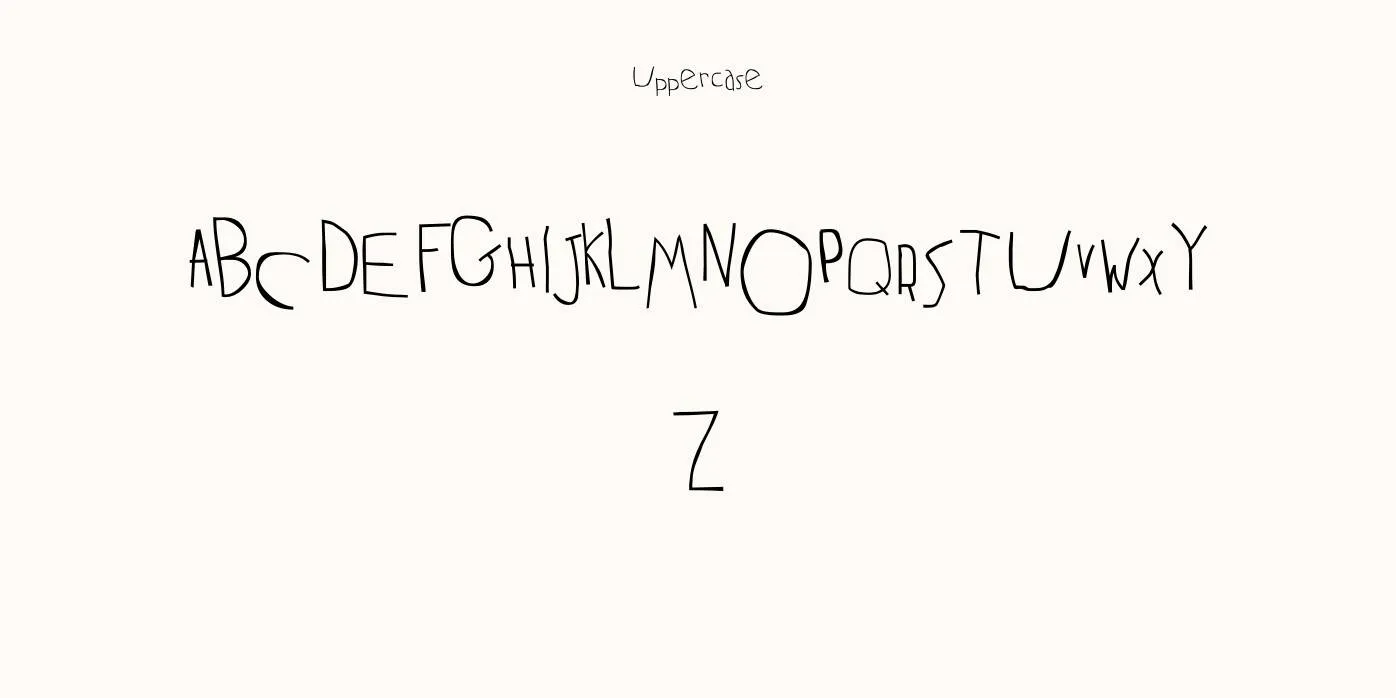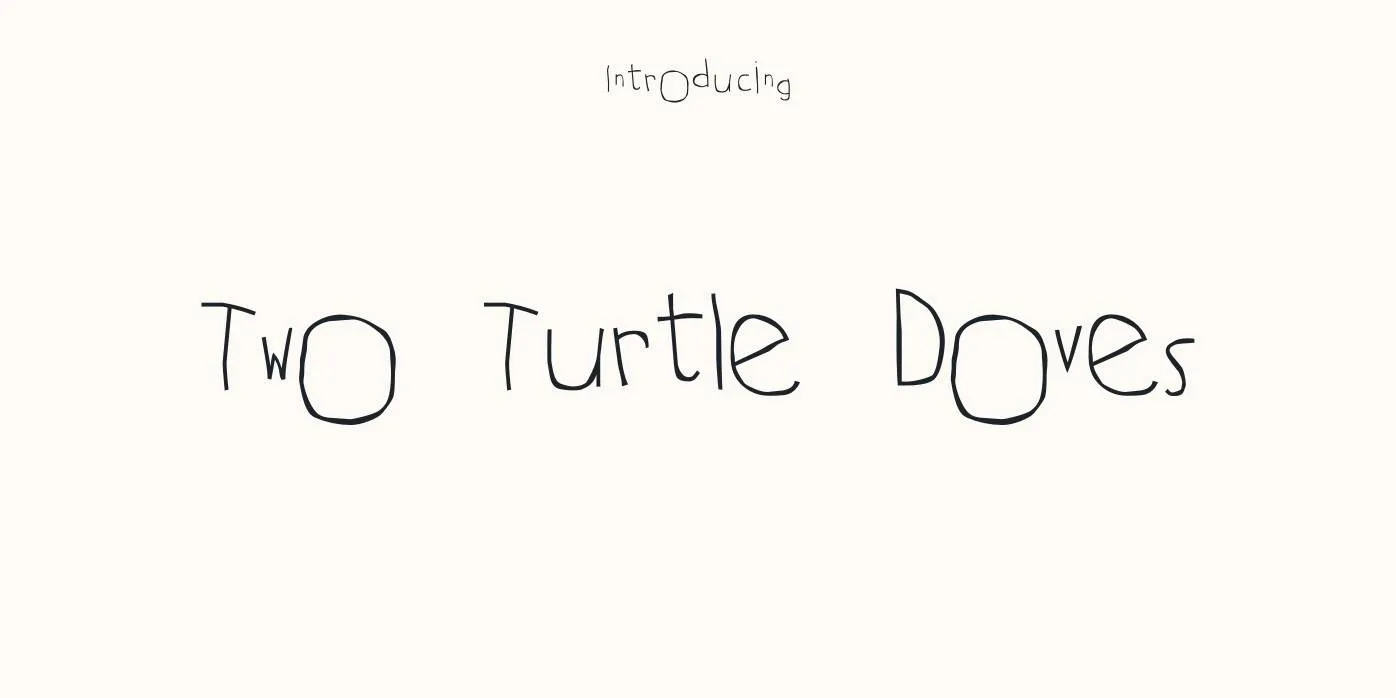
Two Turtle Doves Font
Divide by Zero designed Two Turtle Doves Font. This texture is a script font. It has thin and fragile characters. This texture looks like a child’s handwriting.
This texture’s characters contain Capital letters, lowercase letters, numbers, punctuations, special characters, and many International characters. The allina font is usually utilized by pairing with this font to get a better texture. This texture has 91 glyphs and 101 characters. THis font can be used on many devices such as Linux, Android, IOS, and MacOS.